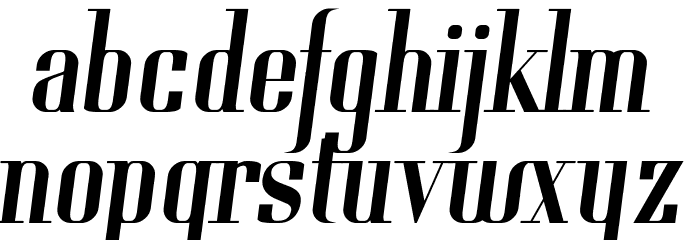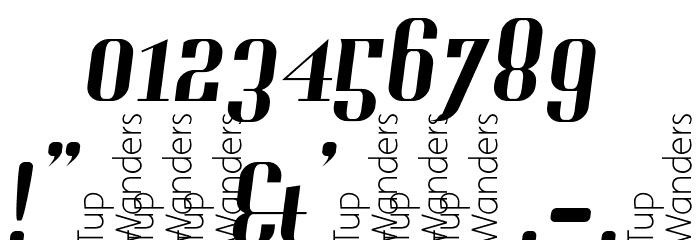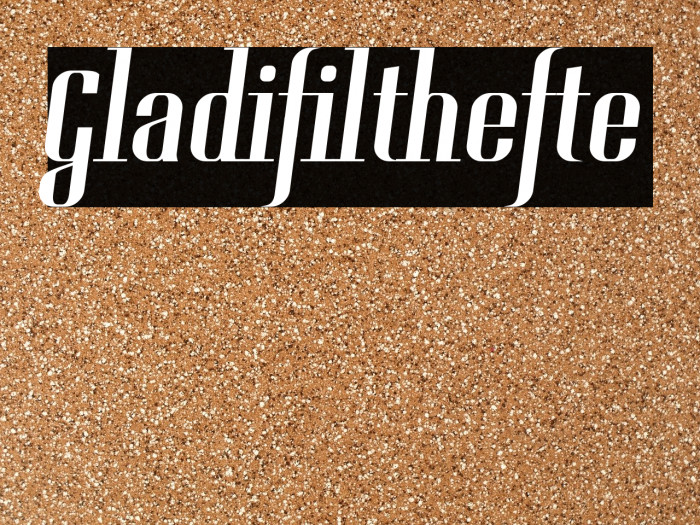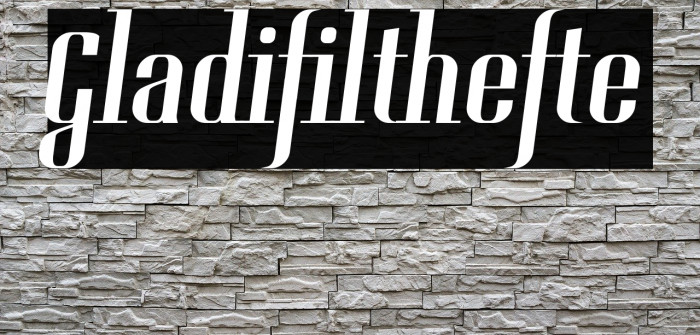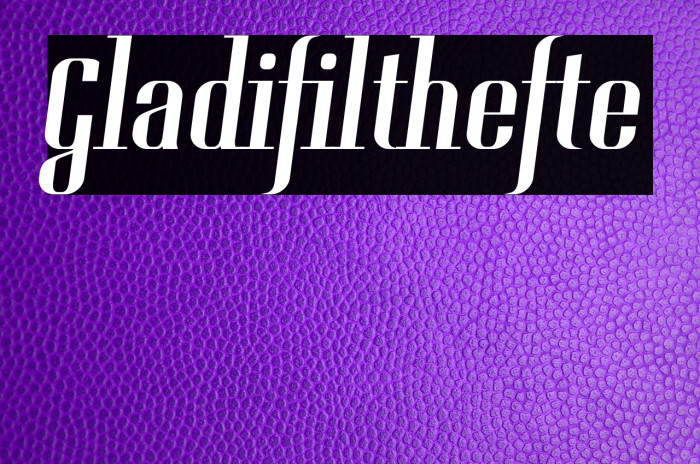
Gladifilthefte Font
This font features a bold and elegant design with a distinct modern flair. The uppercase letters are tall and narrow, with sharp serifs that add a touch of sophistication. The lowercase letters maintain a similar style, offering a cohesive look across different text sizes. Numbers are equally stylized, with a consistent height and width that aligns with the overall aesthetic. Special characters are designed to match the font's sleek and stylish appearance, making it versatile for various applications. The font's unique style is both eye-catching and readable, suitable for a wide range of design projects.
A bold, elegant font with sharp serifs and a modern aesthetic.
- Proposed Projects: Ideal for branding, editorial design, fashion magazines, and luxury product packaging.